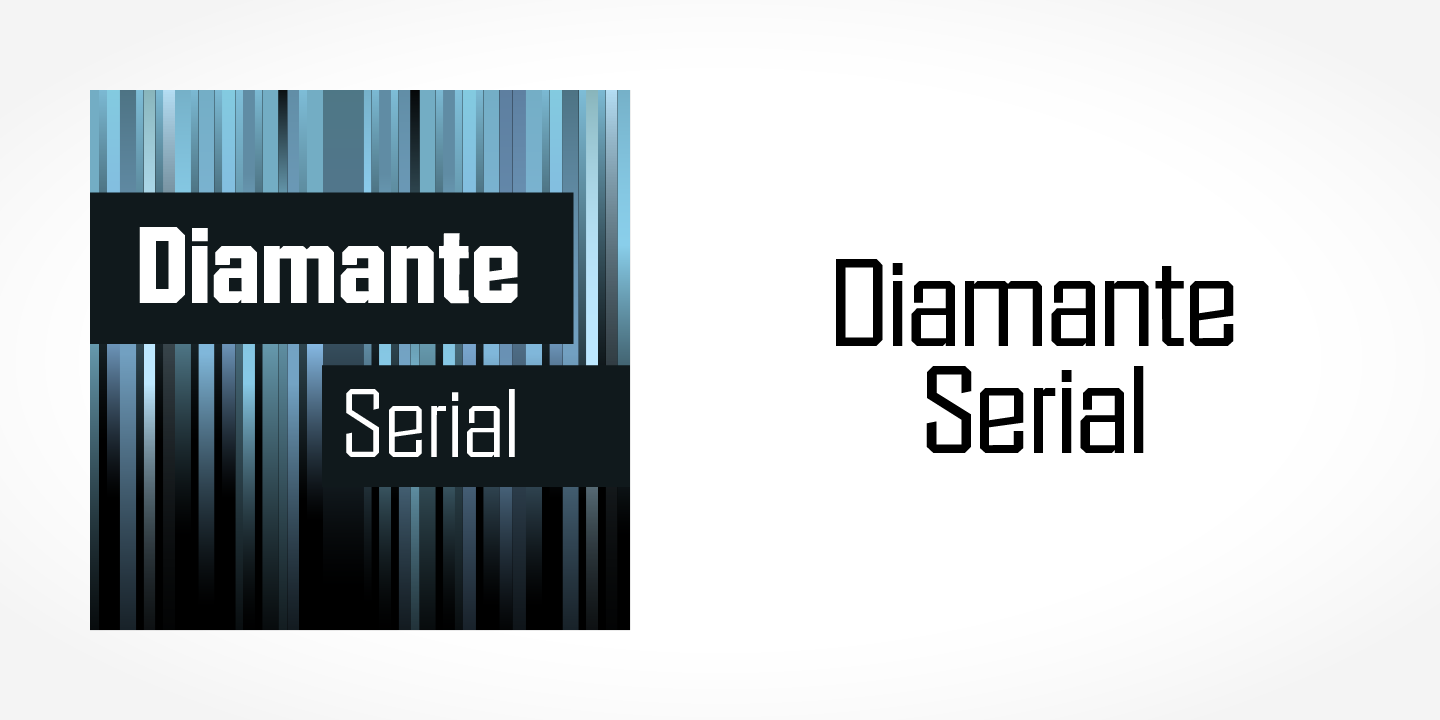
This brilliant typeface is perfect for luxury jewelry stores, diamond dealers, high-end fashion brands, premium beauty products, upscale wedding planners, luxury hotels, exclusive boutiques, crystal manufacturers, precious metals traders, luxury car dealerships, elite lifestyle brands, and prestige marketing campaigns. The font's sparkling design makes it ideal for projects that celebrate luxury, brilliance, and the dazzling beauty of precious gems that capture light and reflect uncompromising quality with timeless elegance.
Diamante Serial Font is exciting because it embodies luxury brilliance and precious elegance through its faceted letterforms and diamond-inspired character structure. The font's crystalline angles and sparkling proportions create an atmosphere of exclusivity, refinement, and extraordinary value, making it perfect for brands that want to convey luxury, rarity, and the captivating allure of precious materials. Its brilliant personality ensures instant glamour while maintaining excellent readability across various luxury applications.
The Diamante Serial Font family includes multiple precious variations: Light Crystal, Regular Gem, Medium Brilliant, Bold Diamond, and Black Precious weights, each available in standard and faceted versions. Special luxury editions feature sparkling alternates, jewel ornaments, and crystal symbols that enhance the font's luxurious appeal, providing designers with comprehensive tools for creating authentic diamond-focused communications.